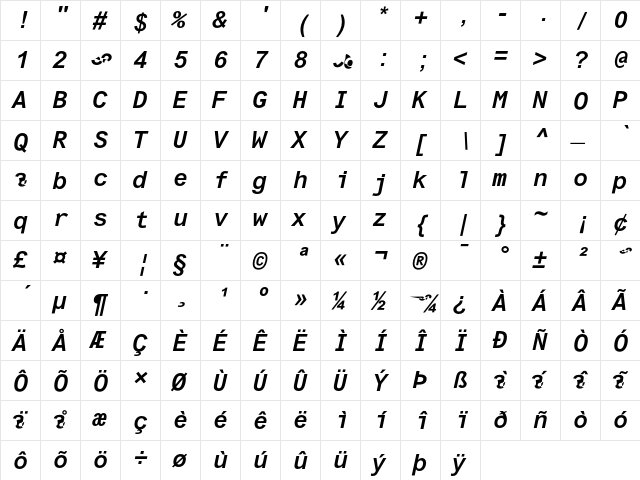
Arial Monospaced MT Bold Italic Font Preview
Design Context for Arial Monospaced MT Typeface
Arial Monospaced MT uses fixed-width spacing throughout, giving it the structured, systematic character associated with coding environments and technical documentation. The slanted form adds forward momentum and visual energy. The heavy weight commands attention and anchors typographic hierarchies.
Pro Tip: Use Arial Monospaced MT with slightly increased line-height for extended reading — fixed-width spacing can feel dense in longer passages without extra breathing room.